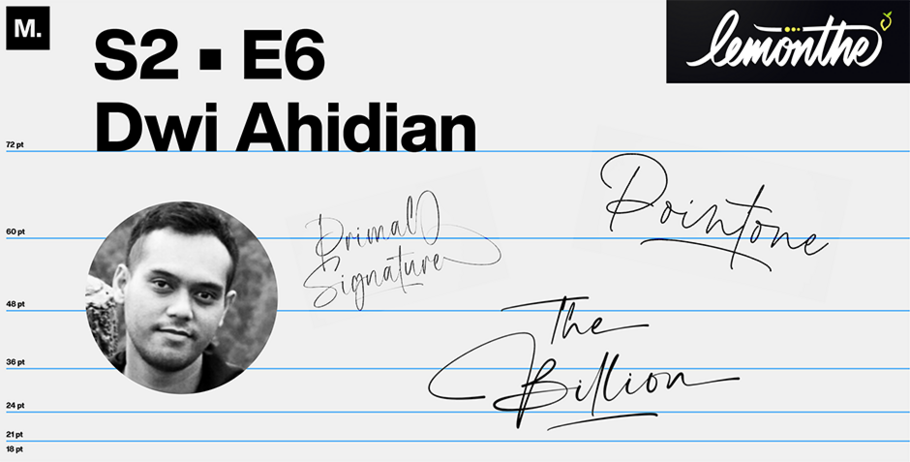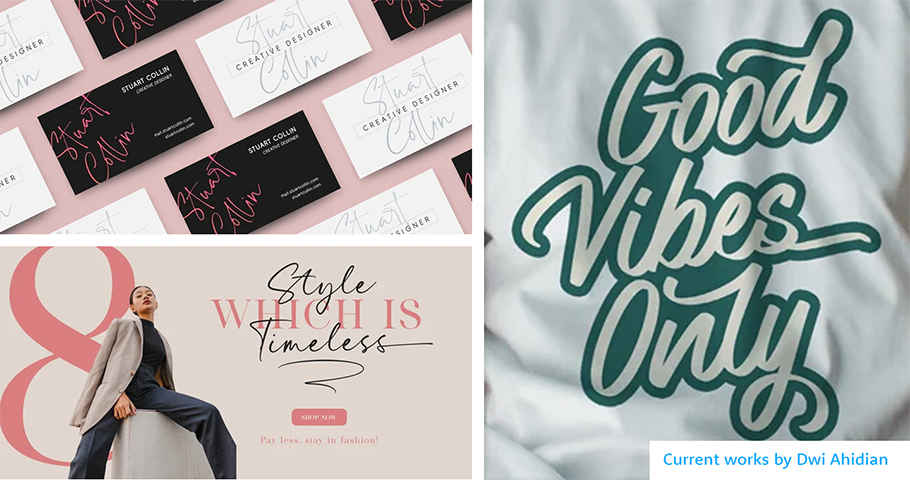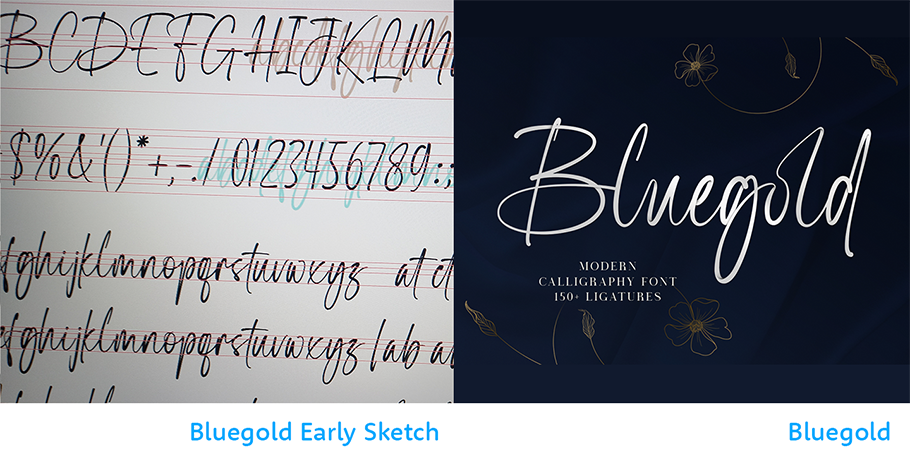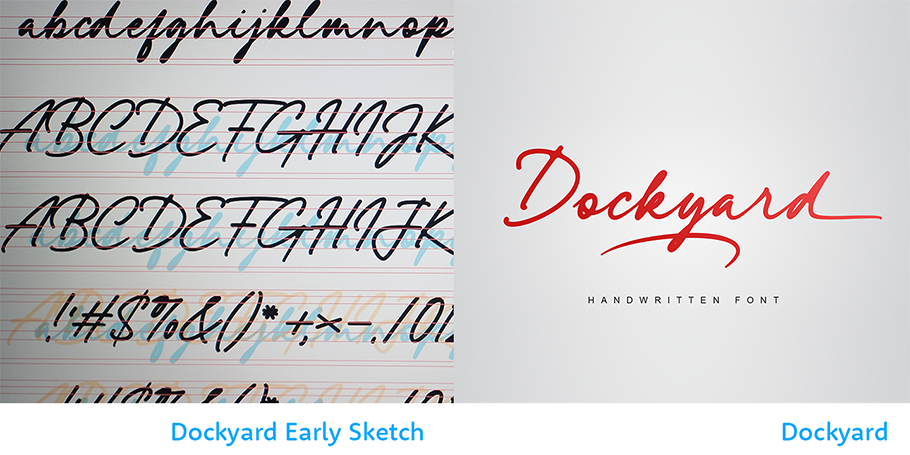
Creative Characters: Up and coming — Lemonthe
“ “Brigend Signature. Because he has a lot of styles, which would certainly not be boring!” ”
– Dwi Ahidian
Graphic designer and font creator Dwi Ahidian, the founder of Lemonthe Studio, found himself on a newly creative path just five years after his 2015 graduation from Politeknik Piksi Ganesha, a university in Bandung, the capital city of Indonesia’s West Java province, where he earned his bachelor’s degree in Information Technology and where he also lives and works.
If, on his entering the job market, Ahidian initially took a more traditional route, first accepting a position as an office administrator for logistics company Sinarmas, and then as a credit marketing officer for Adira Finance, he eventually emerged into the realization that designing typefaces could be lucrative.
Still, creating fonts started as his side-hustle. In a recent email interview with My Fonts, he explained that he began designing typefaces as a way to earn extra money on weekends, before deciding to quit his day job to launch his own business in 2020.
At that point, setting up a one-man foundry seemed like a solid economic decision, he explained, adding that “after a few months, I saw that this job represented a great opportunity for my career, going forward, so I decide to focus on it.”
MyFonts (MF): Even if you have roots in pragmatic areas of industry, your design process for creating script fonts sounds highly associational. Can you explain how it works?
Dwi Ahidian (DA): The first process I used involved randomly writing someone’s name, or cities in the world — or whatever it was — using a pen tablet. And inspiration always arrived when I finished writing it. Most of the script fonts I created were designed with that method, including Brigend and Bluegold.
(MF): Many of your fonts strike me as upper-crust in their shapes — they look like well-spaced, elegant scripts — as well as their names, like Brigend and Bluegold, as well as your script The Billion. Was that intentional?
(DA): Actually, the names of those fonts were obtained only from what came to mind at the time. I never thought consciously about what my fonts would be named. I just named them randomly, even if it didn’t have any meaning.
(MF): Your script Dockyard, too, is beautiful. But to me, it conveys a more muscular feel, one in line with its name. Did you create it for a specific client, or did you design it and then decide the perfect user would come? (Here, I’m imagining a user like Marlon Brando’s character from the film “On the Waterfront.”)
(DA): No, none of my clients requested that Dockyard be created for them. I made it so my font collection is more varied, as I rarely make bold script fonts. And I hope that users who like bold script fonts can add Dockyard to their designs.
(MF): Speaking of film, is that an art form —or are there other art forms — that influence your work?
(DA): I don’t know if any art that I like affects my current work. Maybe so — but, if that’s the case, I didn’t realize it.
(MF): Where do your biggest clients come from, and what have you worked on together?
(DA): They come from my own country, Indonesia, and they’ve asked me to make some fonts.
(MF): What are you developing now that truly excites you?
(DA): I’ve been creating a team. Because I’ve been working on my own, that can start to feel boring. So, I brought my closest friends into this creative process of thinking about design. It feels like that could be great if we could work together as a group. I hope that will be realized in the near future.
(MF): If you could spend one day in the presence of a published font — as if it were a live companion — which font would it be, and why would you want to hang out with it?
(DA): Brigend Signature. Because he has a lot of styles, which would certainly not be boring!
(MF):  Are you surprised that you left IT for font design?
(DA): No, leaving something I’m pretty good at and learning something new I think is fun.
(MF): What does your family think of your new career choice?
(DA): My family has always supported the career path I chose; I am happy to have a family like this.